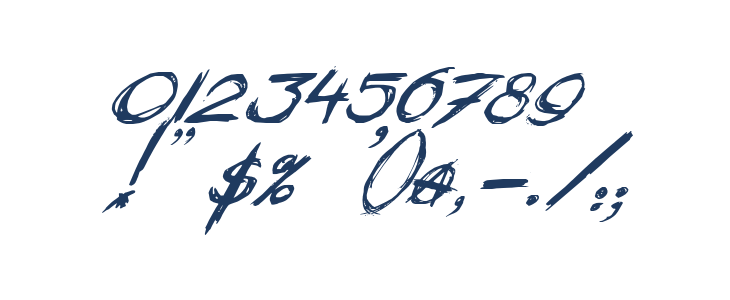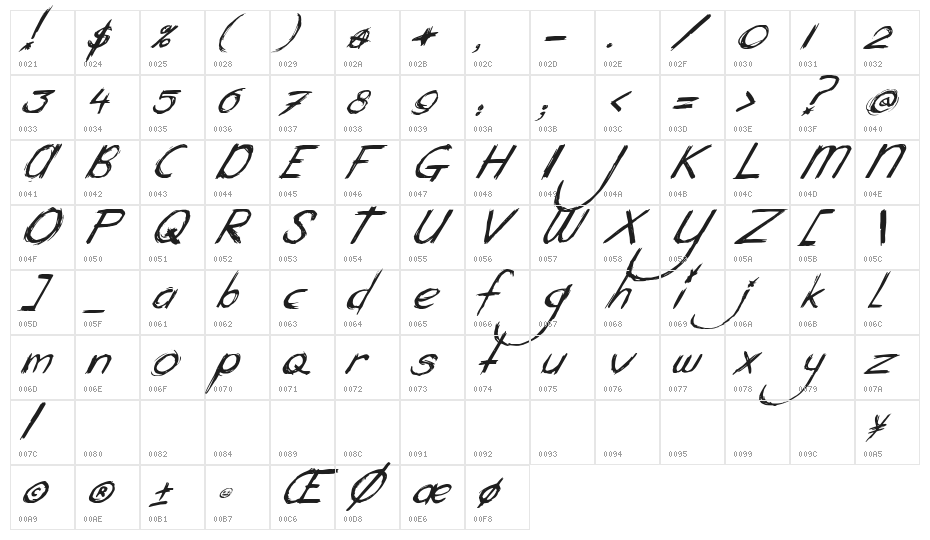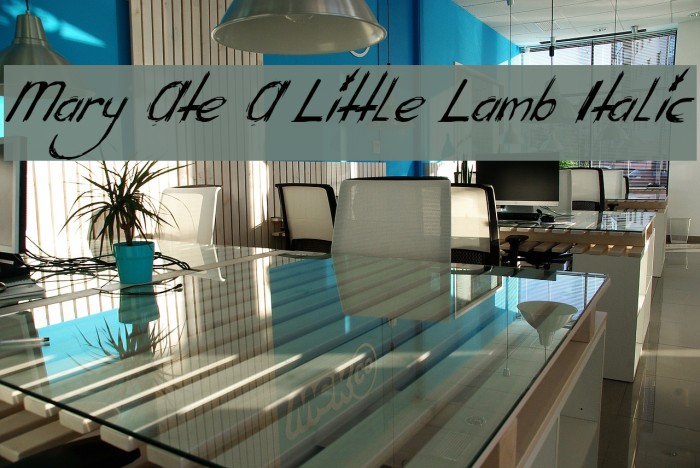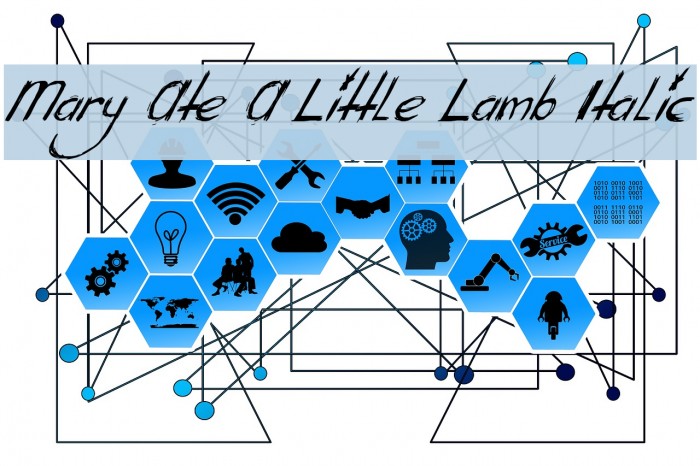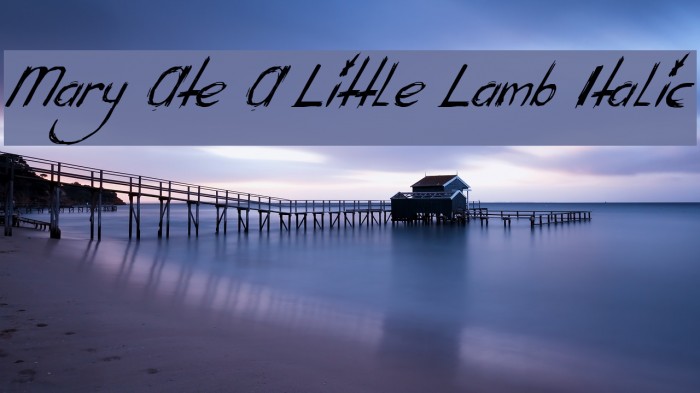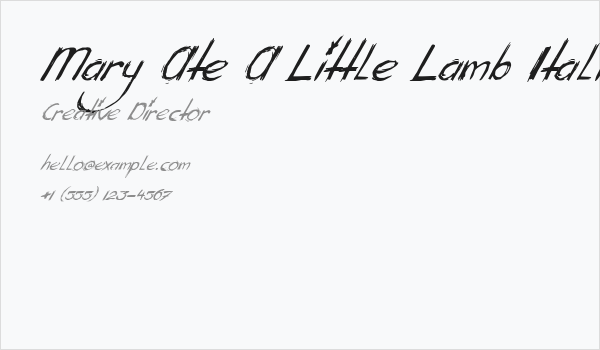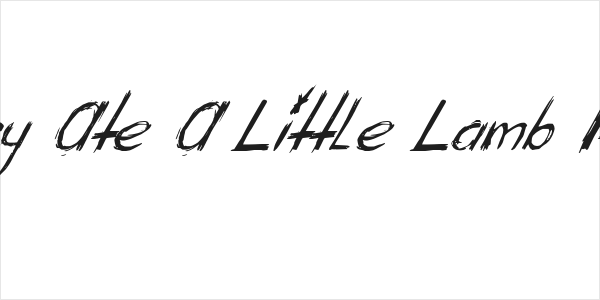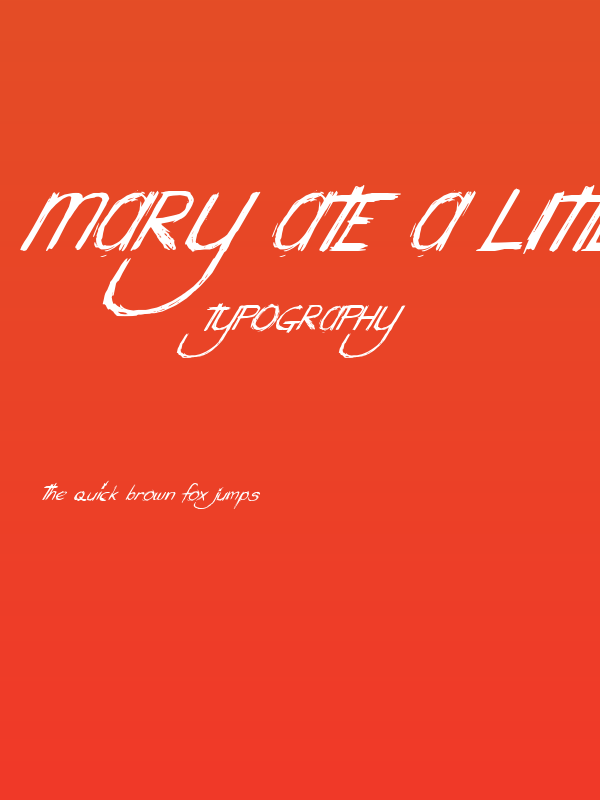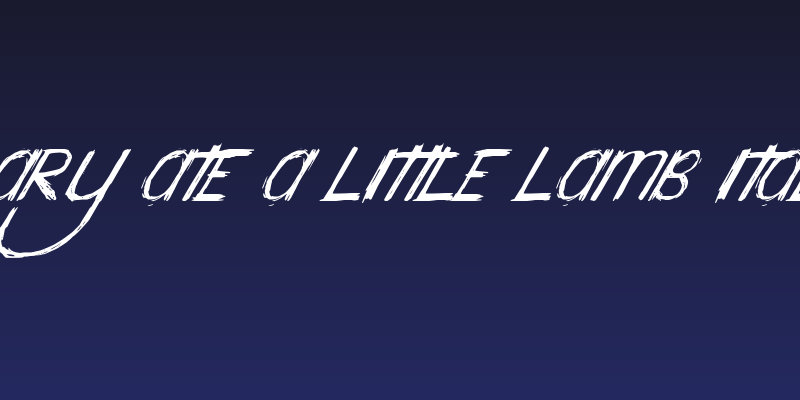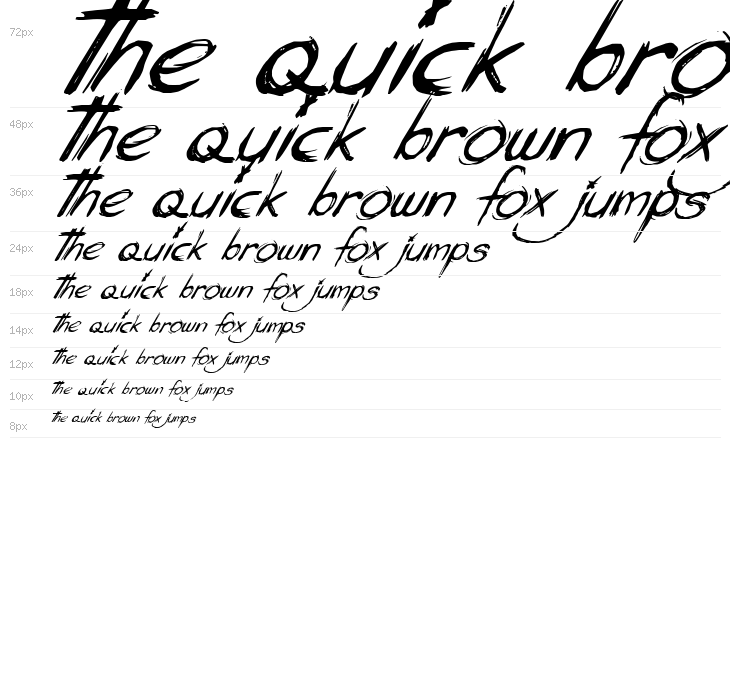
Mary Ate A Little Lamb Italic Font
Mary Ate A Little Lamb Italic Description
This font exhibits a dynamic and expressive style, characterized by its brush-like strokes and italicized form. The letters are crafted with a sense of movement, featuring irregular edges and varying thickness that create a sense of energy and spontaneity. The uppercase and lowercase letters maintain a consistent slant, enhancing the fluidity of the design. Numbers and special characters follow the same artistic approach, ensuring a cohesive look across all elements. The font's unique style makes it ideal for projects that require a bold and artistic touch.
| Use Case | Logos, Posters, Artistic Designs |
| Proposed Projects | Ideal for artistic projects, branding, posters, and any design requiring a bold, creative flair. |